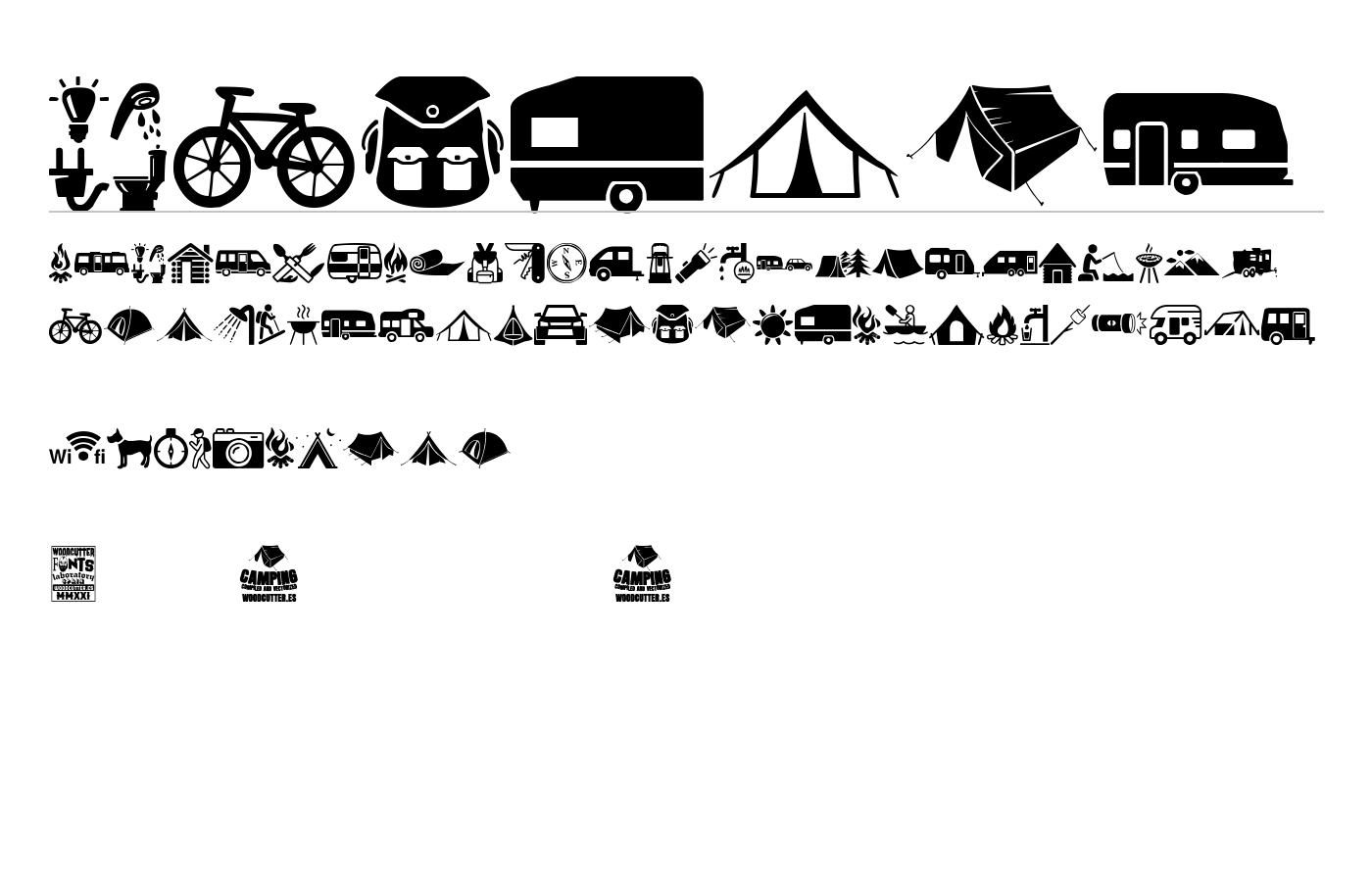
Camping Font is a unique symbol-based typeface featuring bold, solid black icons that capture various outdoor and camping themes with clear, simple shapes. Perfect for adding visual interest to adventure-related projects, this font works great in logos, signage, and promotional materials where conveying a rustic, playful, and nature-inspired vibe is essential. Its straightforward, highly recognizable design makes it ideal for brands and communications centered on camping, travel, and outdoor lifestyles.
Camping Font
About Camping Font